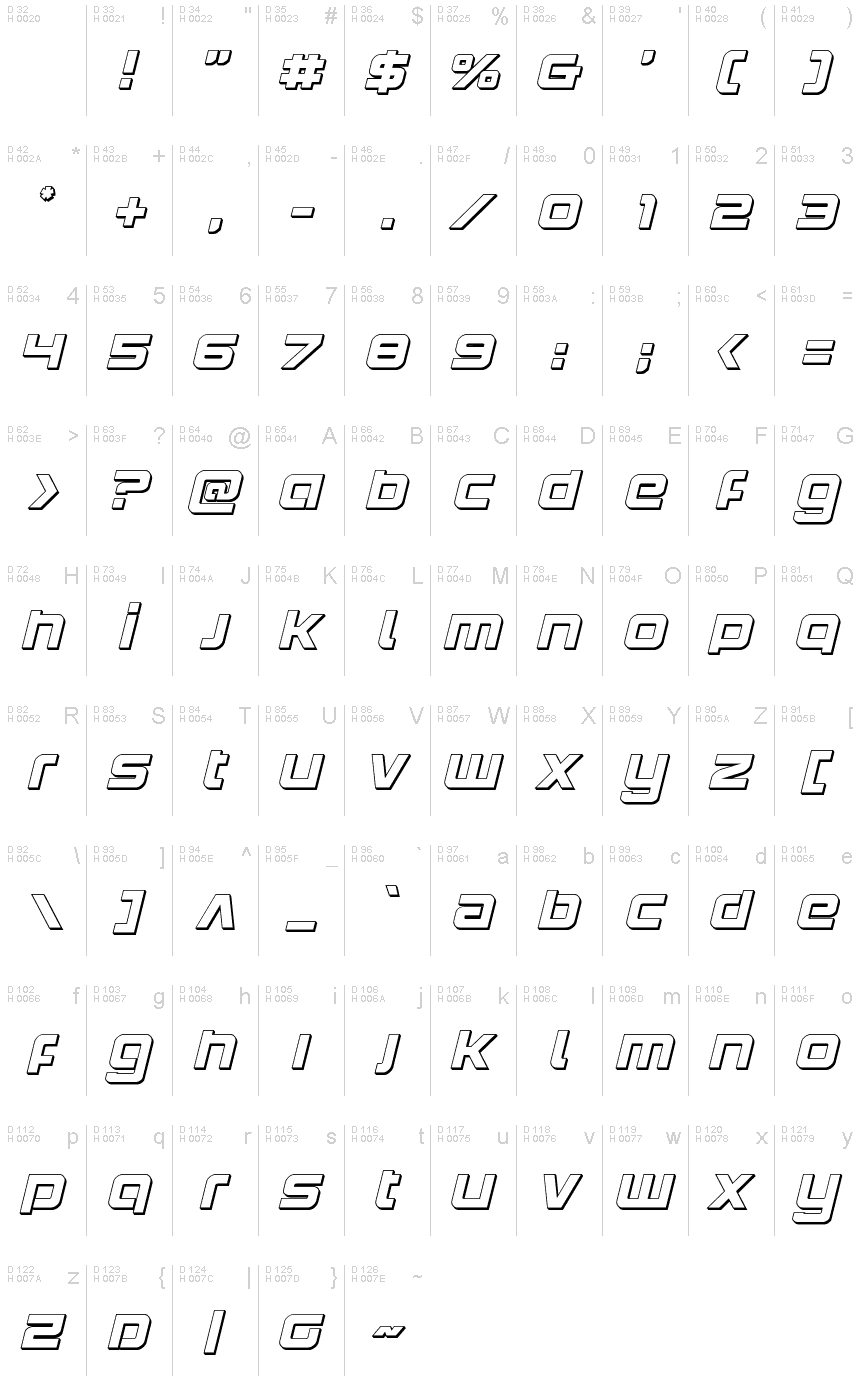
Yielding Timber 3D Italic
Yielding Timber 3D Italic is a display font with a unique techno-style that adds depth and dimension to your typography. Designed by Daniel Zadorozny, this font family is perfect for projects that require bold and eye-catching headlines, such as posters, flyers, and advertisements. Its wide width makes it ideal for designs that need to fill up space, while its 3D effect adds an extra layer of interest to your text. Whether you're creating a futuristic sci-fi movie poster or a sleek modern website header, Yielding Timber 3D Italic is sure to make your words pop off the page.
Daniel Zadorozny